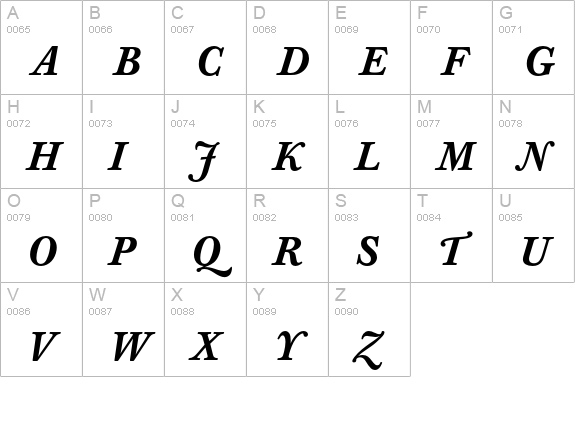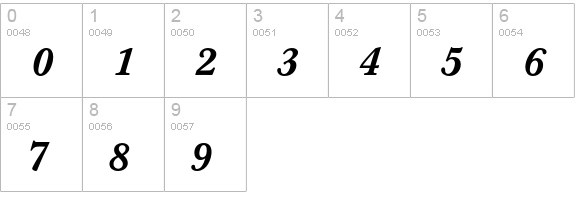
Berthold Baskerville Book Medium Italic is a comfortable, highly readable, italic variant in the Berthold typeface family \xE2\x80\x94 well suited to long-form body text, articles, and editorial content.
Berthold Baskerville Book Medium Italic font exudes elegance and sophistication with its sleek and modern design. The delicate slant of the italic style adds a touch of flair to any project, making it perfect for conveying a sense of refinement and style. The medium weight strikes the perfect balance between readability and impact, making it versatile for a wide range of design applications. And the best part? This exquisite font is available for free download at FontsMarket.com, allowing you to elevate your designs without breaking the bank. Whether you're working on a branding project, editorial layout, or any other creative endeavor, Berthold Baskerville Book Medium Italic font is sure to add a touch of class and sophistication. Download it today and unleash your creativity with this stunning typeface.